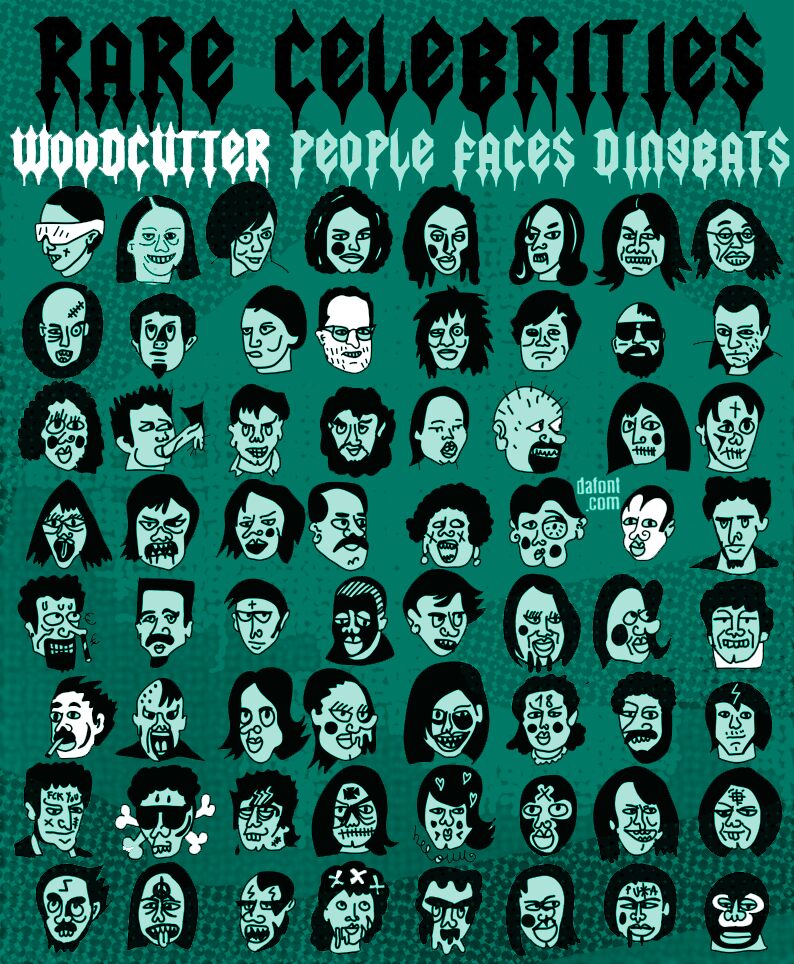
Rare Celebrities
Rare Celebrities by Woodcutter is a captivating dingbat font that meshes human-like caricatures with bold, expressive lines. Each character in this unique collection brims with personality and artistic flair, making it perfect for projects seeking an unconventional edge. The exaggerated features and distinct expressions offer an eye-catching appeal, adding a playful yet striking element to your design toolkit.
Ideal for posters, album covers, zines, or any creative venture demanding originality and bold visuals, Rare Celebrities ensures each piece stands out. Its broad strokes and prominent details make it versatile for various contexts while maintaining a cohesive style throughout. Embrace the extraordinary with Rare Celebrities and watch your designs come to life with charm and character.